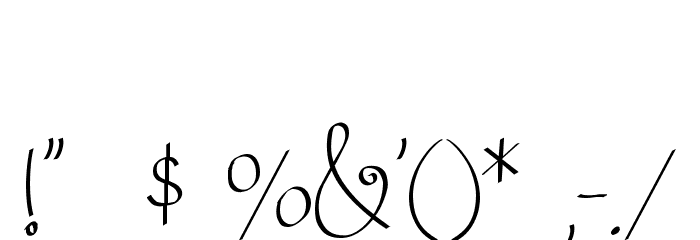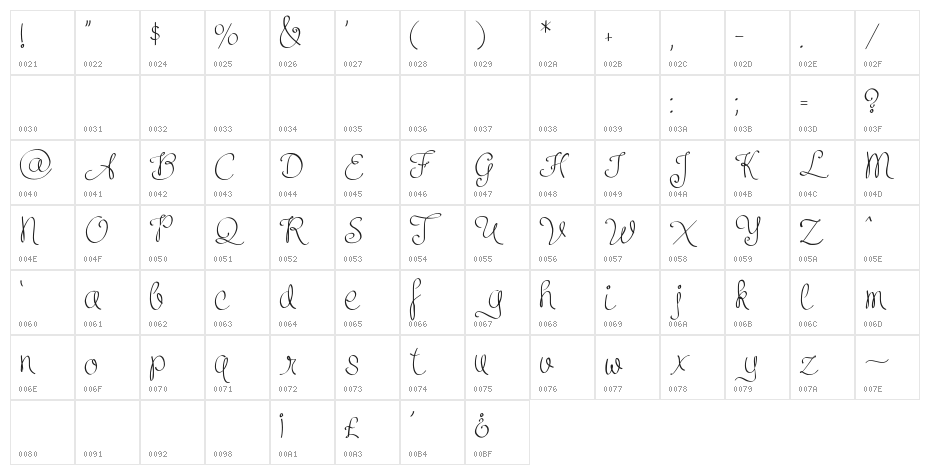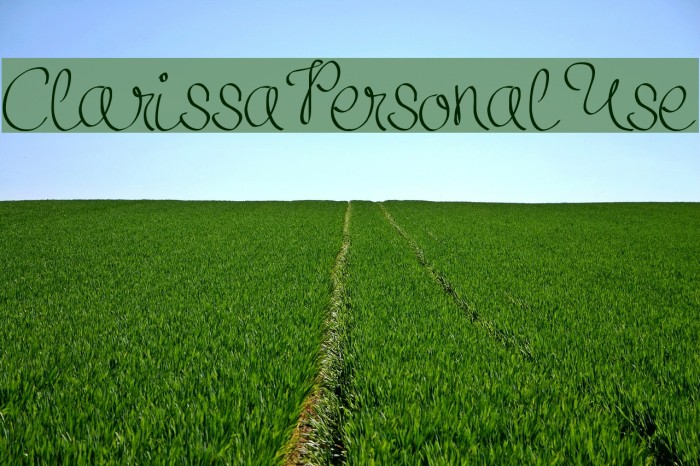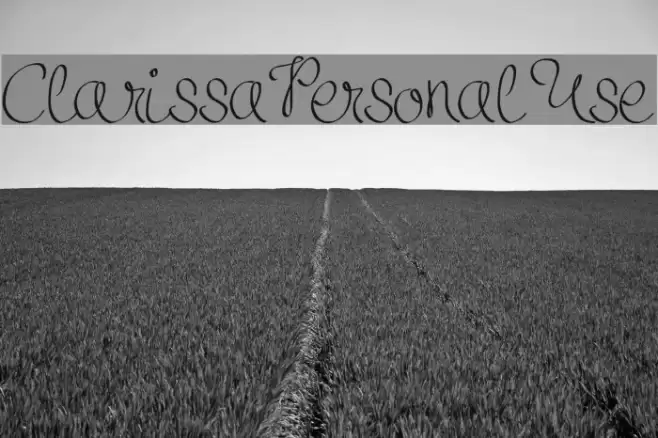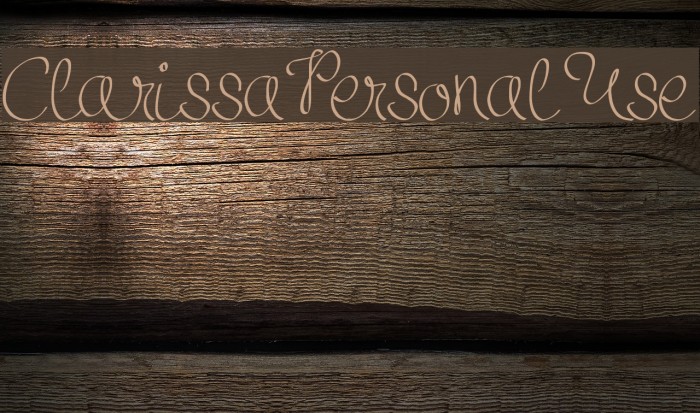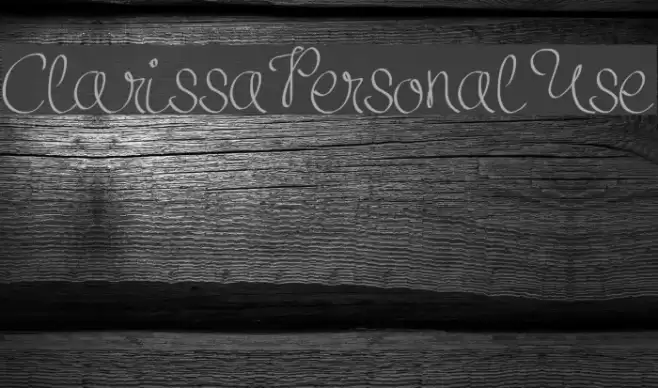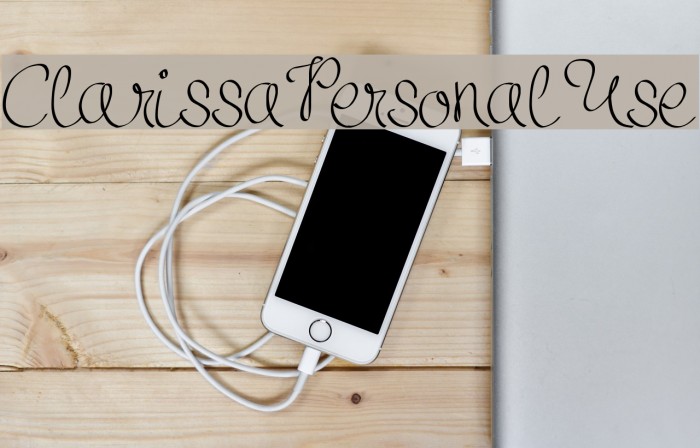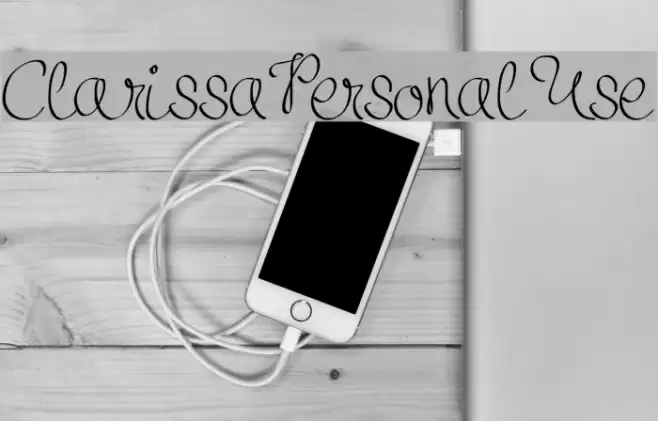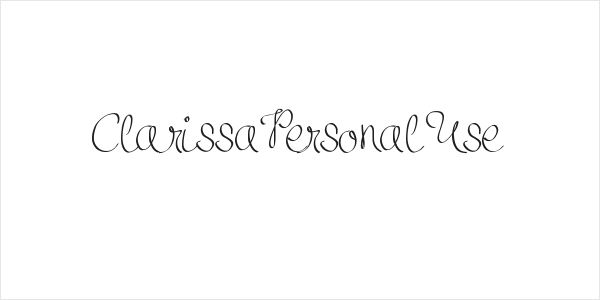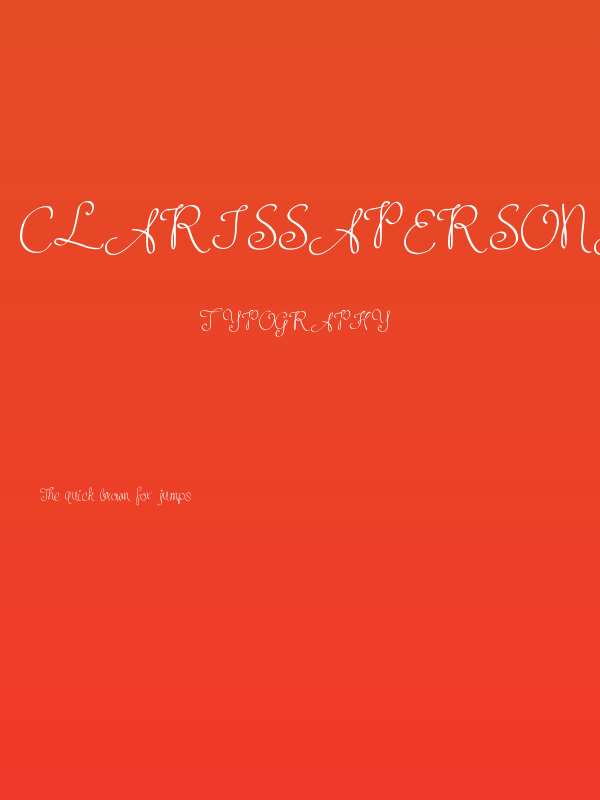
ClarissaPersonalUse Font
ClarissaPersonalUse Description
This font features an elegant and flowing script style, characterized by its smooth, cursive strokes and delicate loops. The uppercase letters are ornate, with flourishes that give a sense of movement and grace. The lowercase letters maintain a consistent style, with a slightly more restrained design that complements the uppercase. The numerals and special characters are crafted with the same attention to detail, ensuring a cohesive look across all glyphs. This font's design is both sophisticated and approachable, making it suitable for a variety of applications where a touch of elegance is desired.